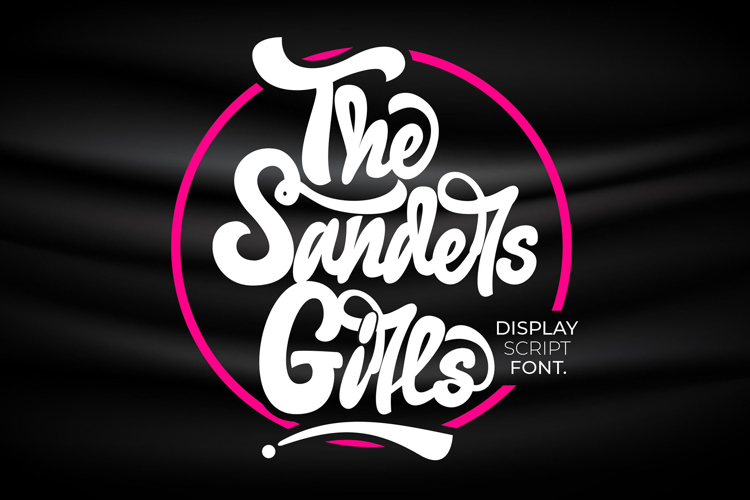
The Sanders Girls - Display Script Font
Introducing The Sanders Girls – the Display Script Font that blends elegance with charm. Perfect for projects that require a touch of sophistication and femininity, The Sanders Girls offers a graceful and captivating aesthetic that enhances any design.
✨ Elegant and Charming: The Sanders Girls enchants with its flowing, elegant script. Each character is meticulously crafted to convey sophistication and grace, making it ideal for designs that need a refined and stylish appeal.
🌟 Versatile and Feminine: This font brings a feminine touch to a variety of creative projects, from wedding invitations and greeting cards to branding designs. Its versatility ensures seamless integration into various applications, adding a touch of elegance wherever it is used.
🖋️ Graceful and Stylish: The Sanders Girls combines grace and style in every stroke. Its fluid and smooth letterforms create a harmonious and visually pleasing look, perfect for projects that require a delicate and polished touch.
🎨 Unique Character: The Sanders Girls stands out with its unique character and attention to detail. Each letter exudes artistic expression, making your designs memorable and impactful. Perfect for creating a lasting impression, this font adds a distinctive flair to any project.
Elevate your designs with The Sanders Girls – the Display Script Font that combines elegance, charm, and versatility. Ideal for making a sophisticated visual impact, The Sanders Girls is your go-to font for adding a graceful and stylish touch to any project.